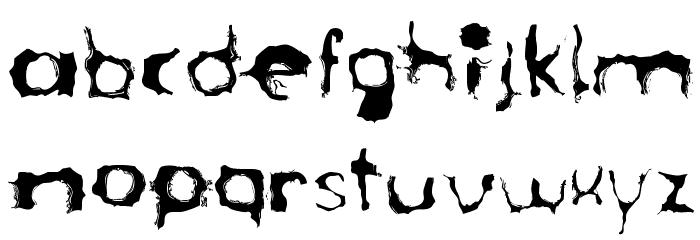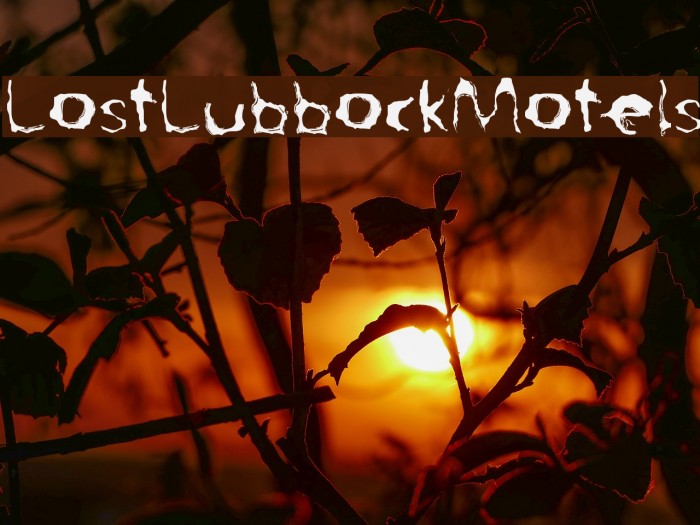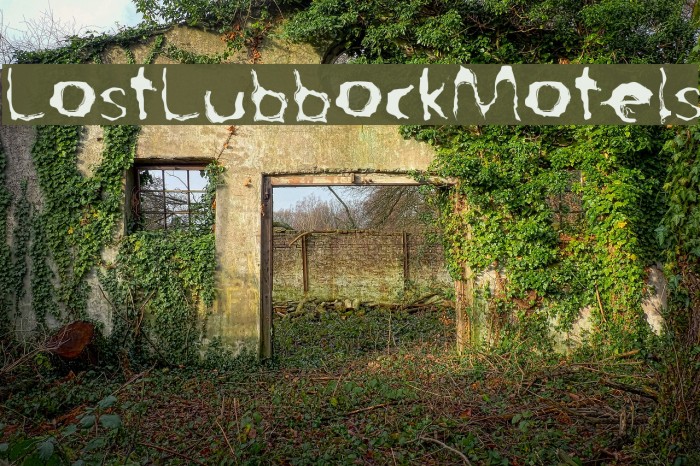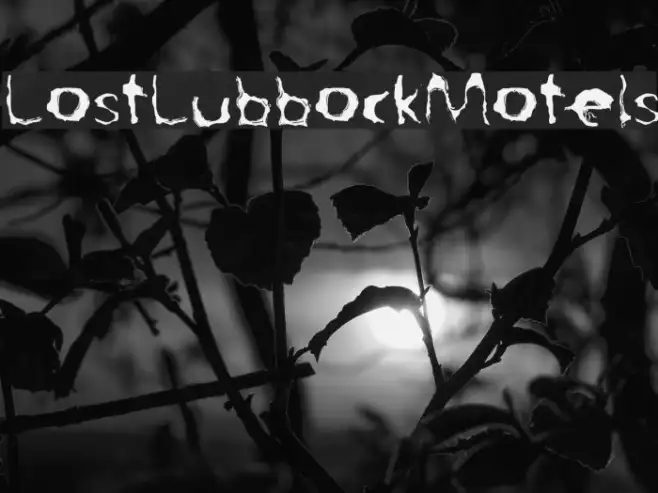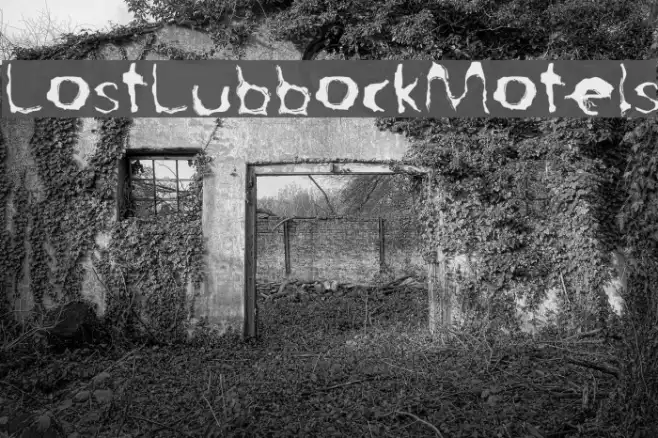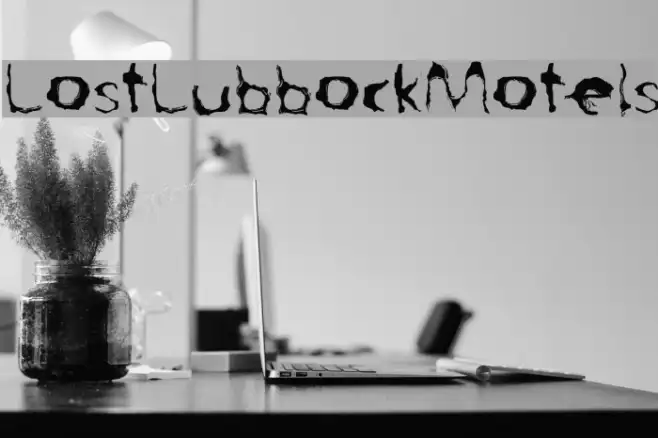
LostLubbockMotels Font
This font features a highly distressed and grungy style, with each character appearing as if it has been eroded or weathered over time. The edges of the letters are irregular and jagged, giving the font a chaotic and raw aesthetic. The uppercase and lowercase letters maintain a consistent theme of decay, while the numbers and special characters follow suit with similar ruggedness. This font evokes a sense of mystery and edginess, making it suitable for designs that require a bold and unconventional look.
A distressed, grungy font with irregular, jagged edges.
- Proposed Projects: Ideal for horror-themed posters, album covers, or any project needing a gritty, edgy vibe.